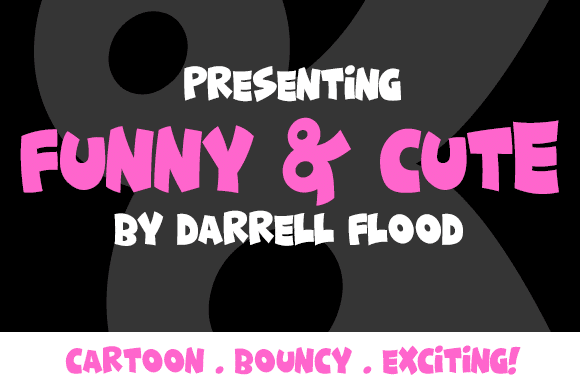
Funny & Cute is a curvy, cartoony font in a comical style. Perfect for comic panel speech bubbles, sound effects, and more! This font is easy to read and visually appealing.